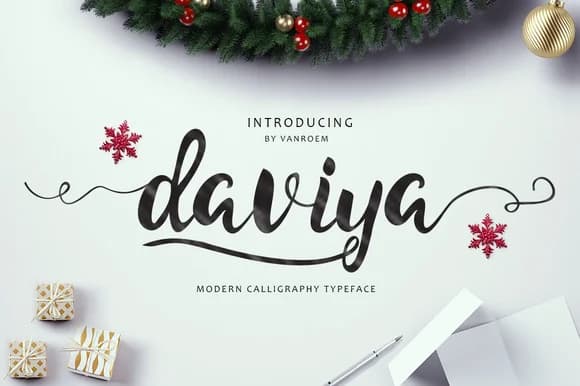
Daviya Font by VanRoem is a flowing hand-lettered script that merges organic warmth with refined control, capturing the character of skilled penmanship while maintaining the clarity needed for professional design work. The typeface's natural strokes and balanced proportions make it particularly effective for applications where authenticity matters, wedding invitation suites benefit from its personal touch, while DIY craft signage gains dimensional appeal through its distinctive letterforms. What makes this script stand apart is its ability to feel handmade without sacrificing readability, a balance that works across both digital displays and printed materials. This typeface shines in artisanal branding contexts, from Etsy shop identities to boutique product label design, where handwritten typography reinforces perceived quality and craftsmanship. Custom vinyl decal projects, heat transfer applications, and cutting-machine work all benefit from Daviya's flowing letterforms, making it valuable for makers and fabricators who blend digital design with physical production. The script's versatility extends to secondary typographic roles, complementing body copy in greeting cards, book covers, and packaging design while never overwhelming the layout. Daviya Font works seamlessly across design tools and cutting machines, giving you flexibility whether your next project lives digitally or physically. Get this script on Creative Fabrica and add its distinctive character to your work.
Daviya Font is a script font that shines as a display or heading face. Pair it with a clean sans-serif or serif font for body text β the contrast creates a clear hierarchy while the two styles stay balanced and easy to read.
Daviya Font
by VanRoem